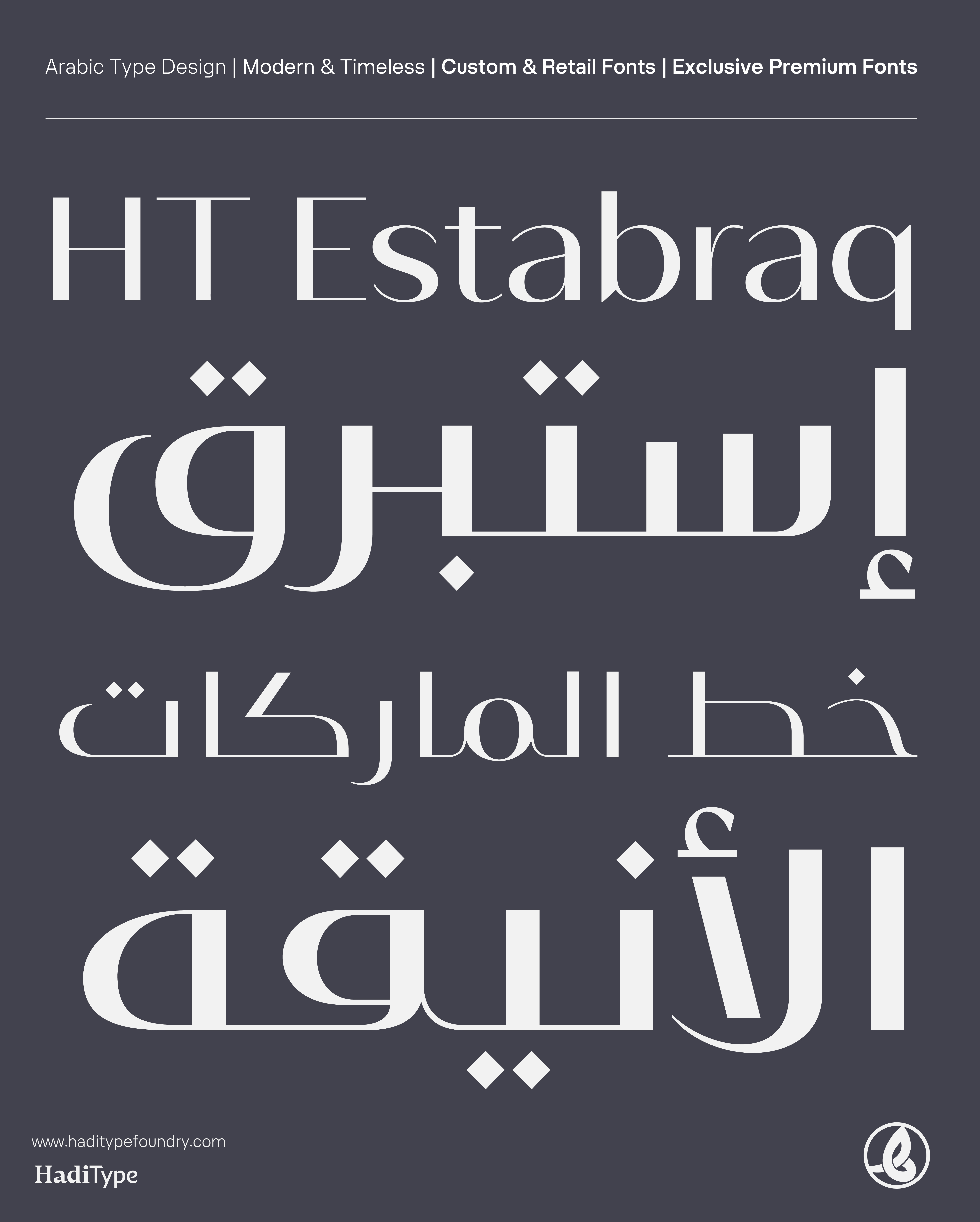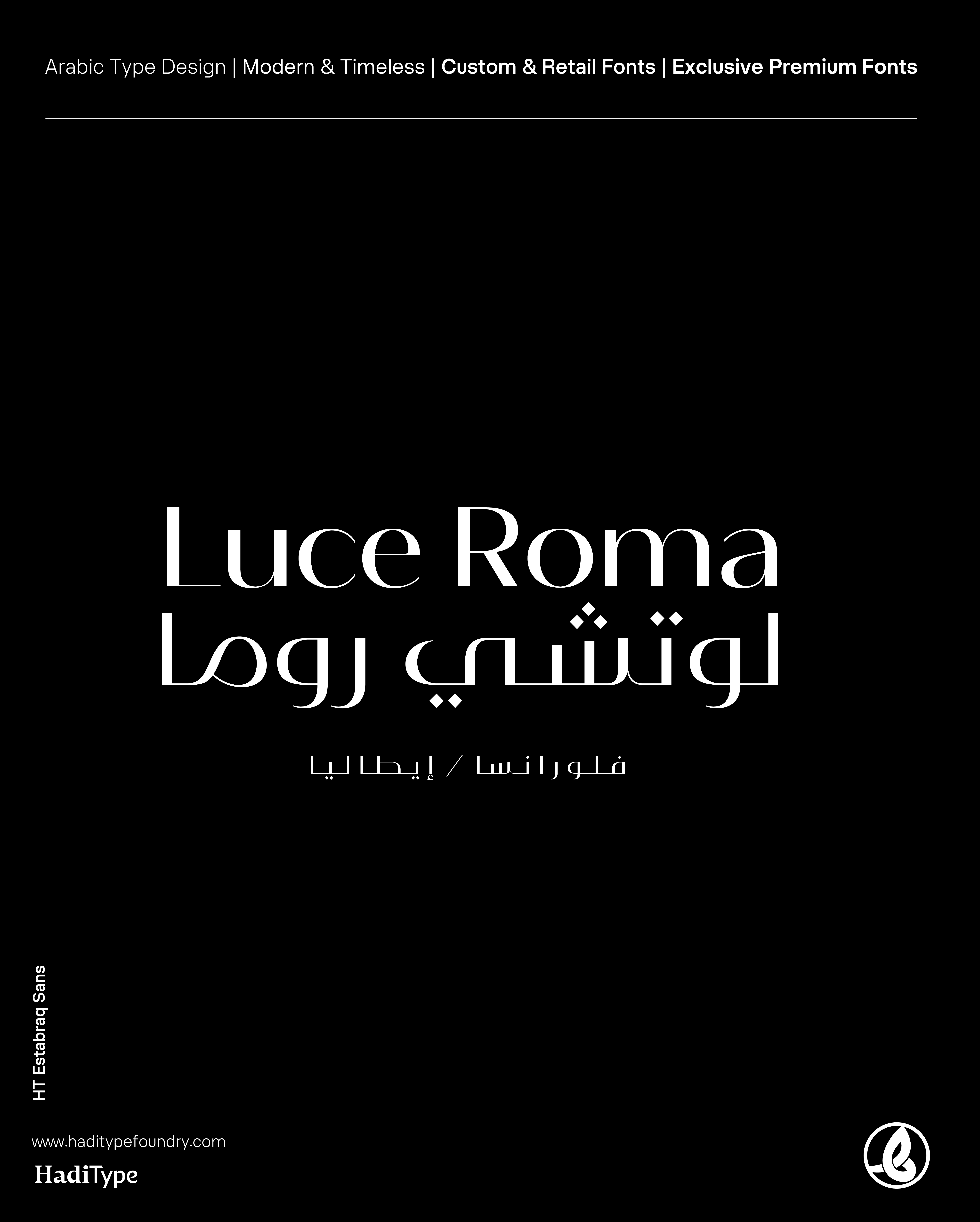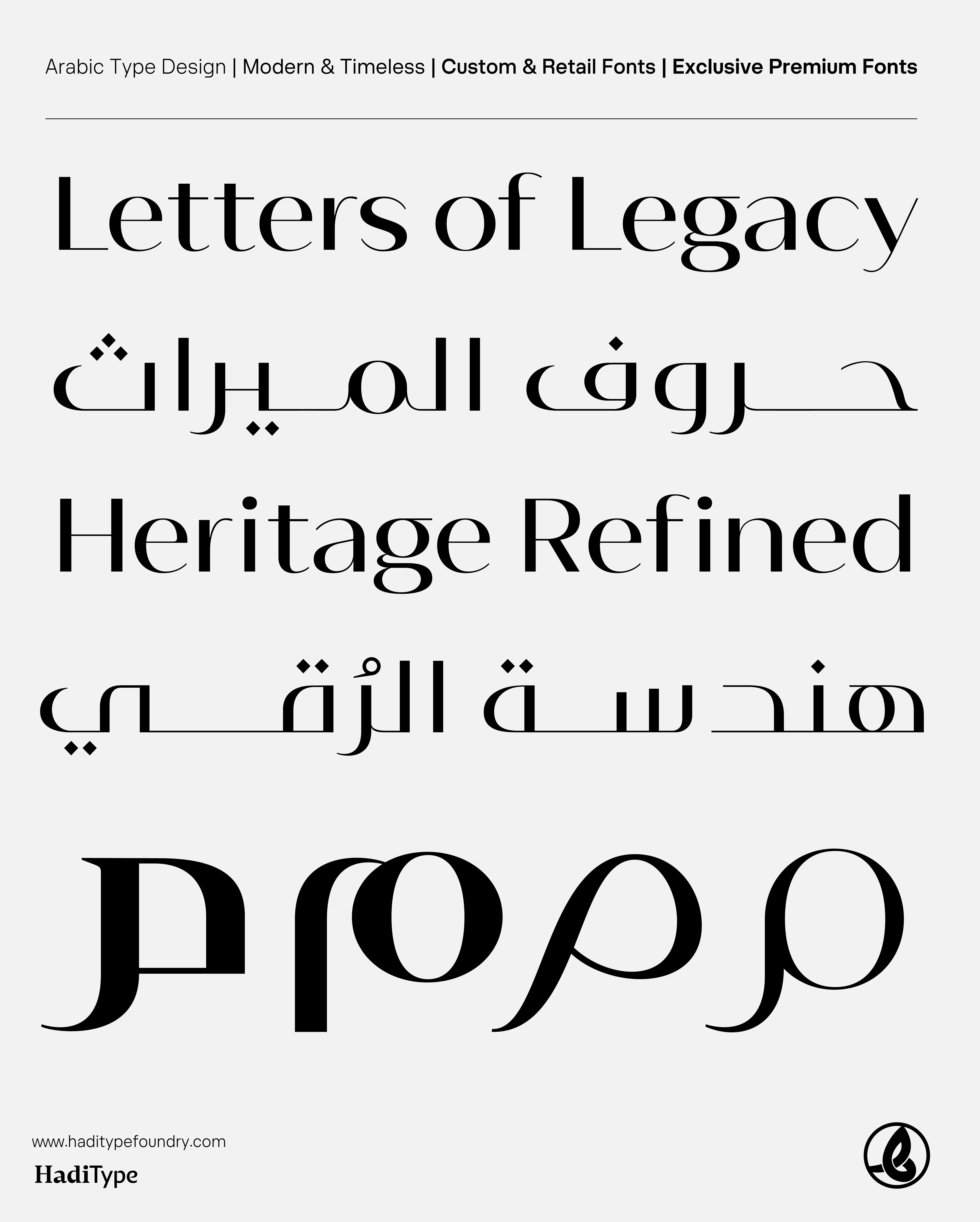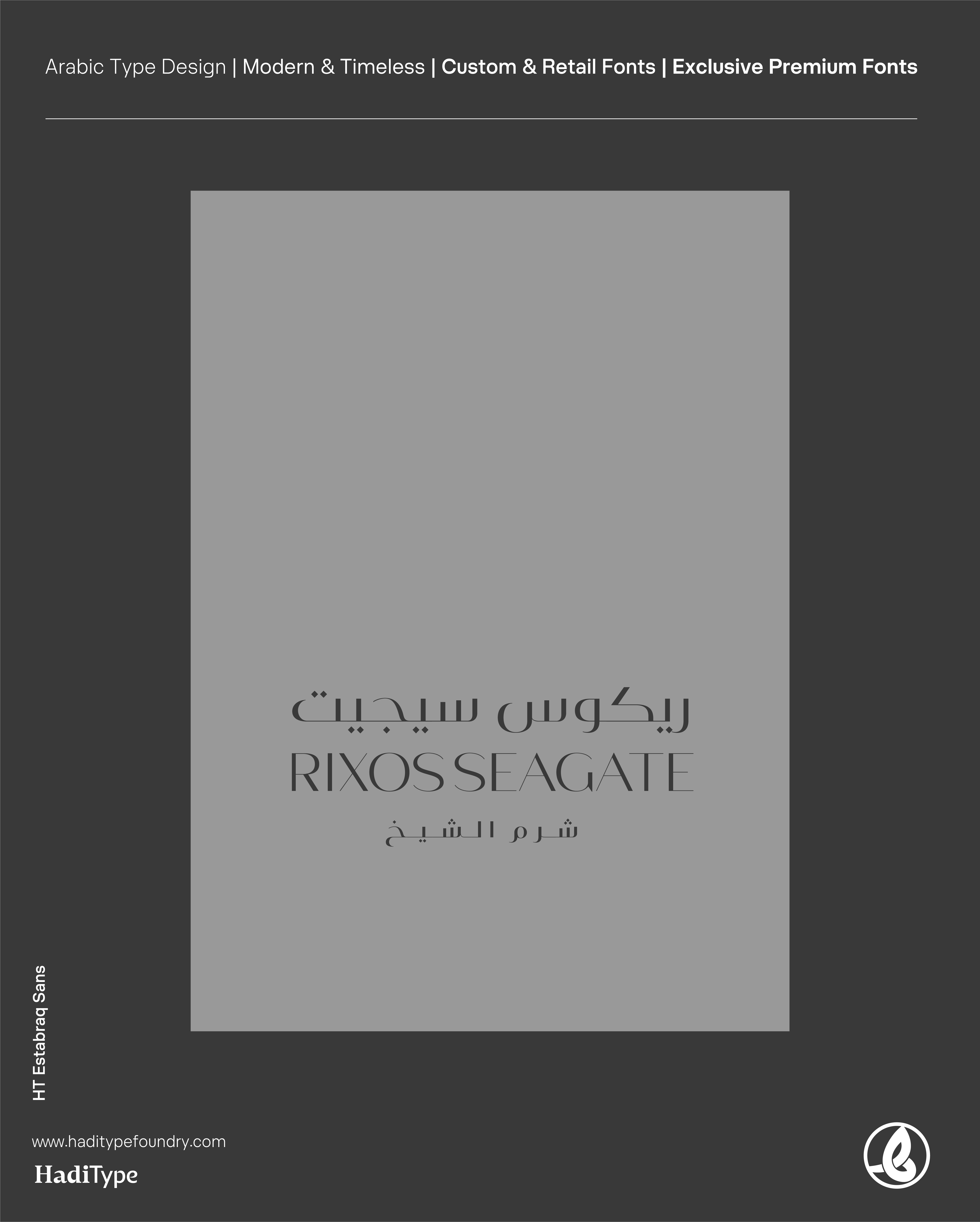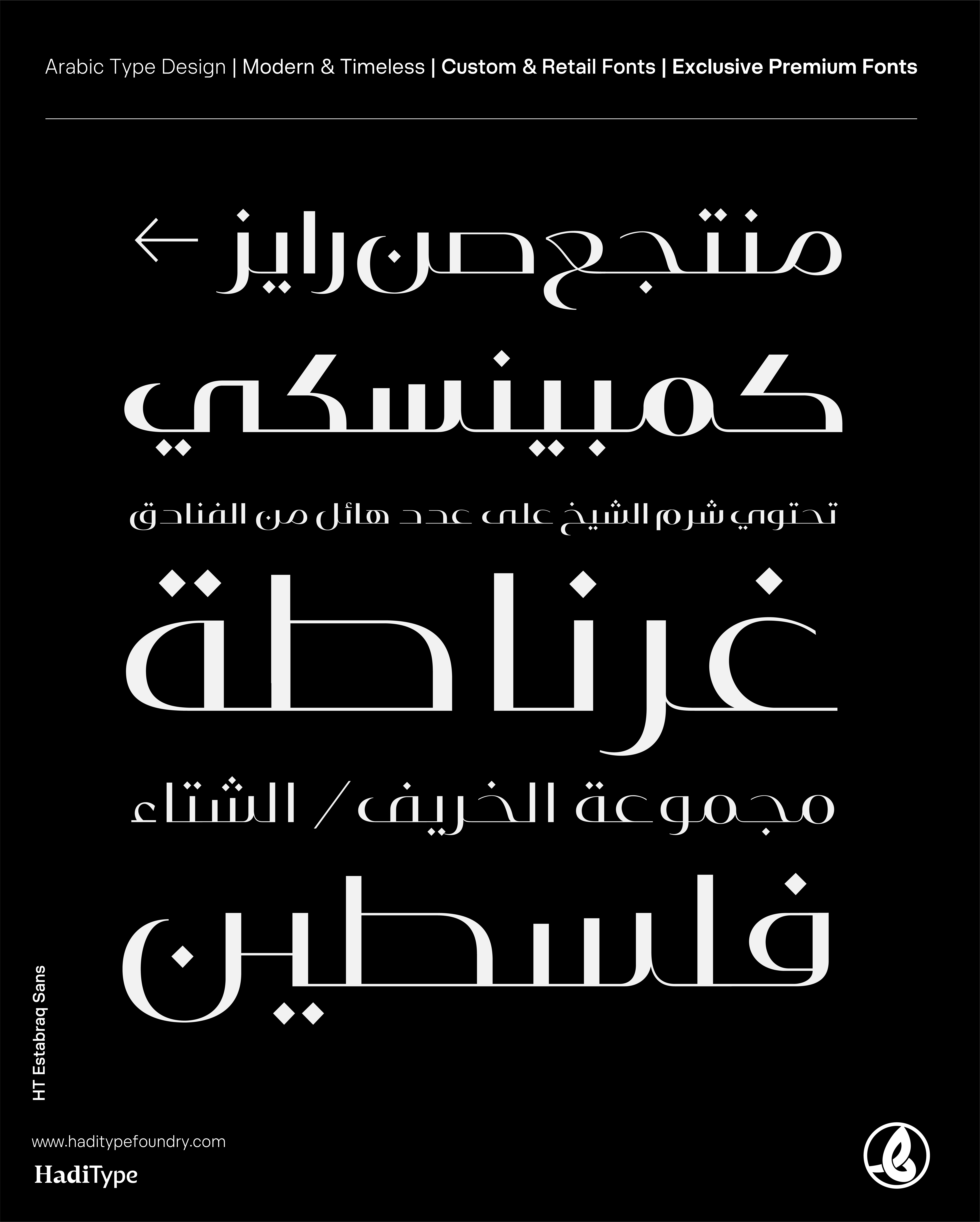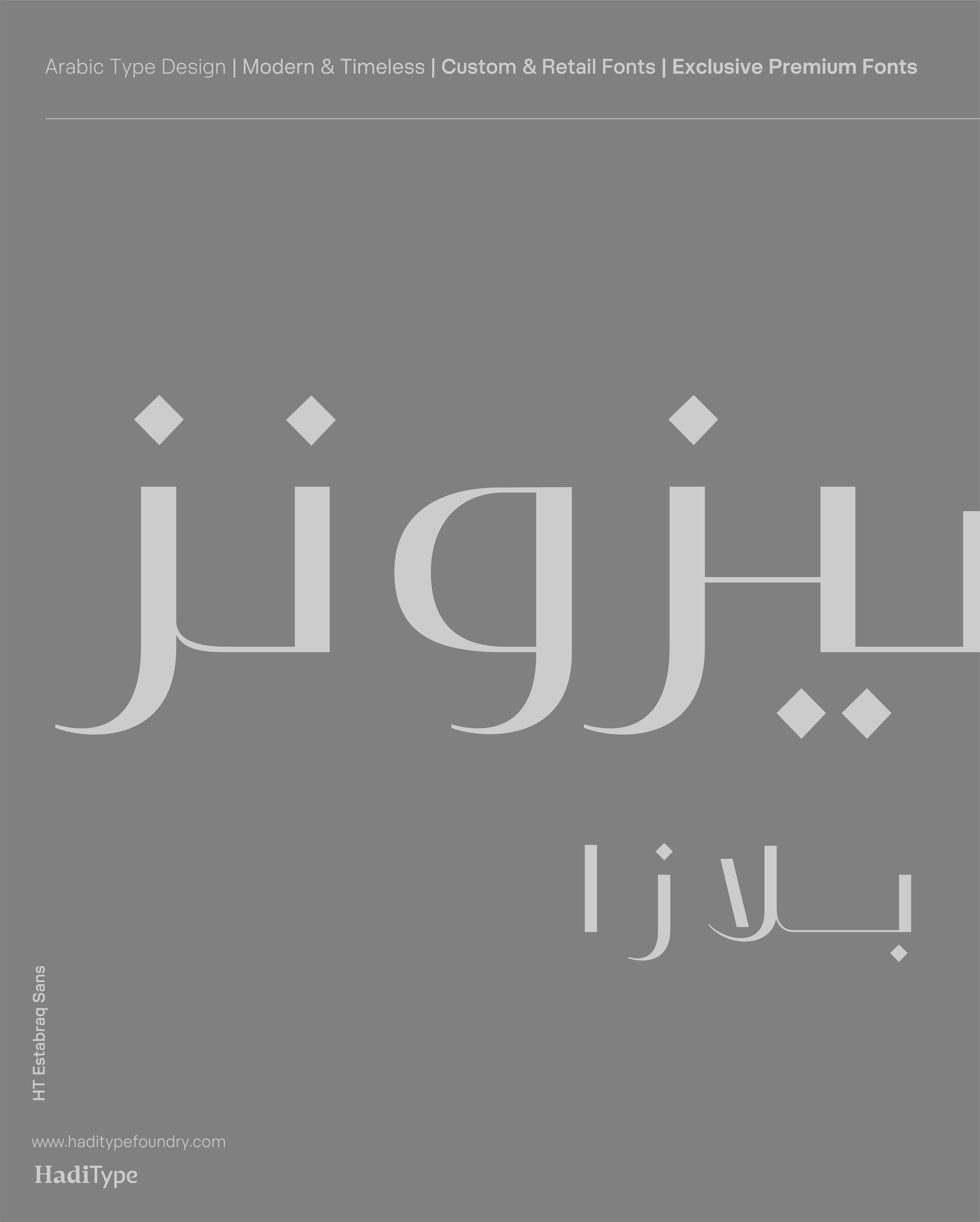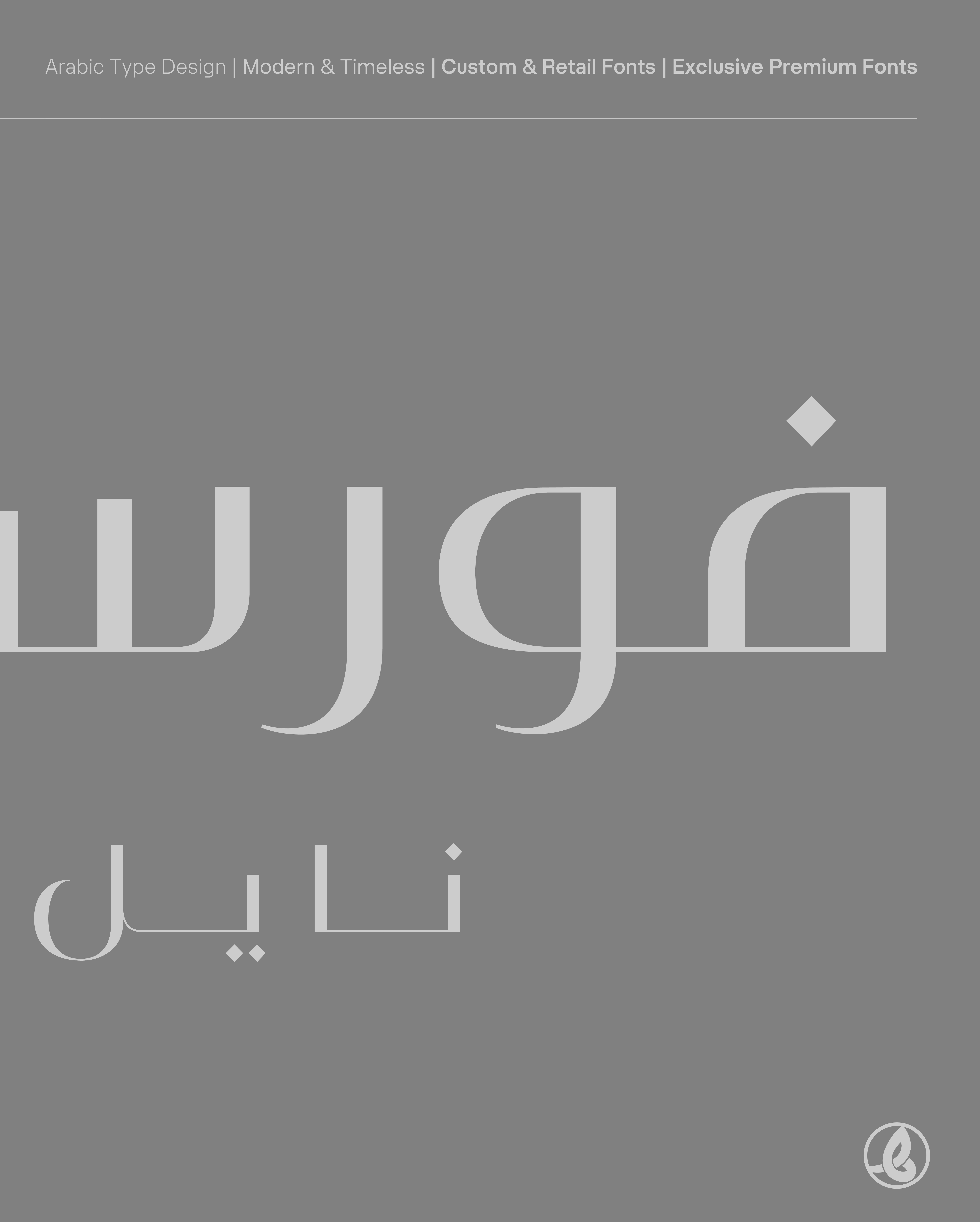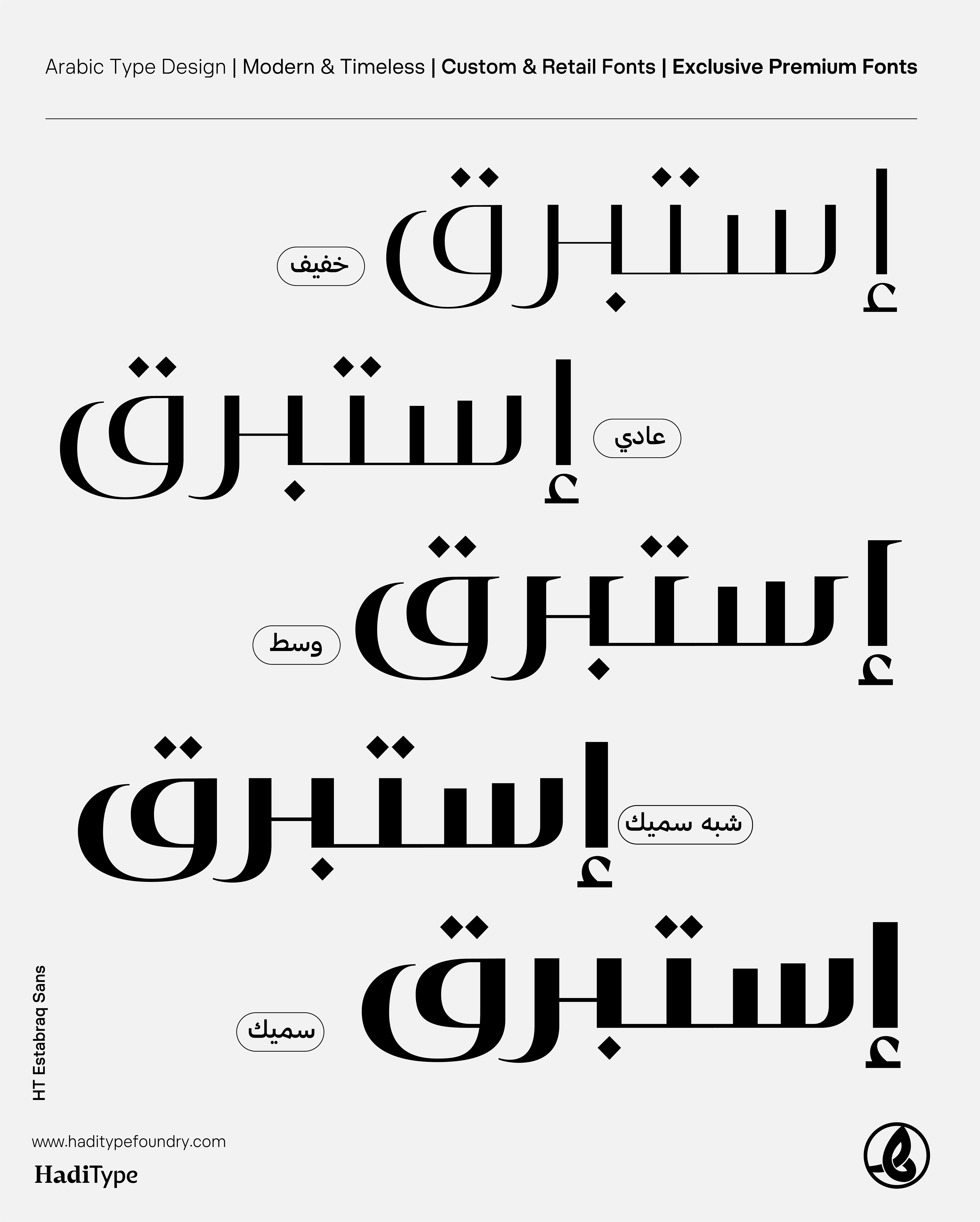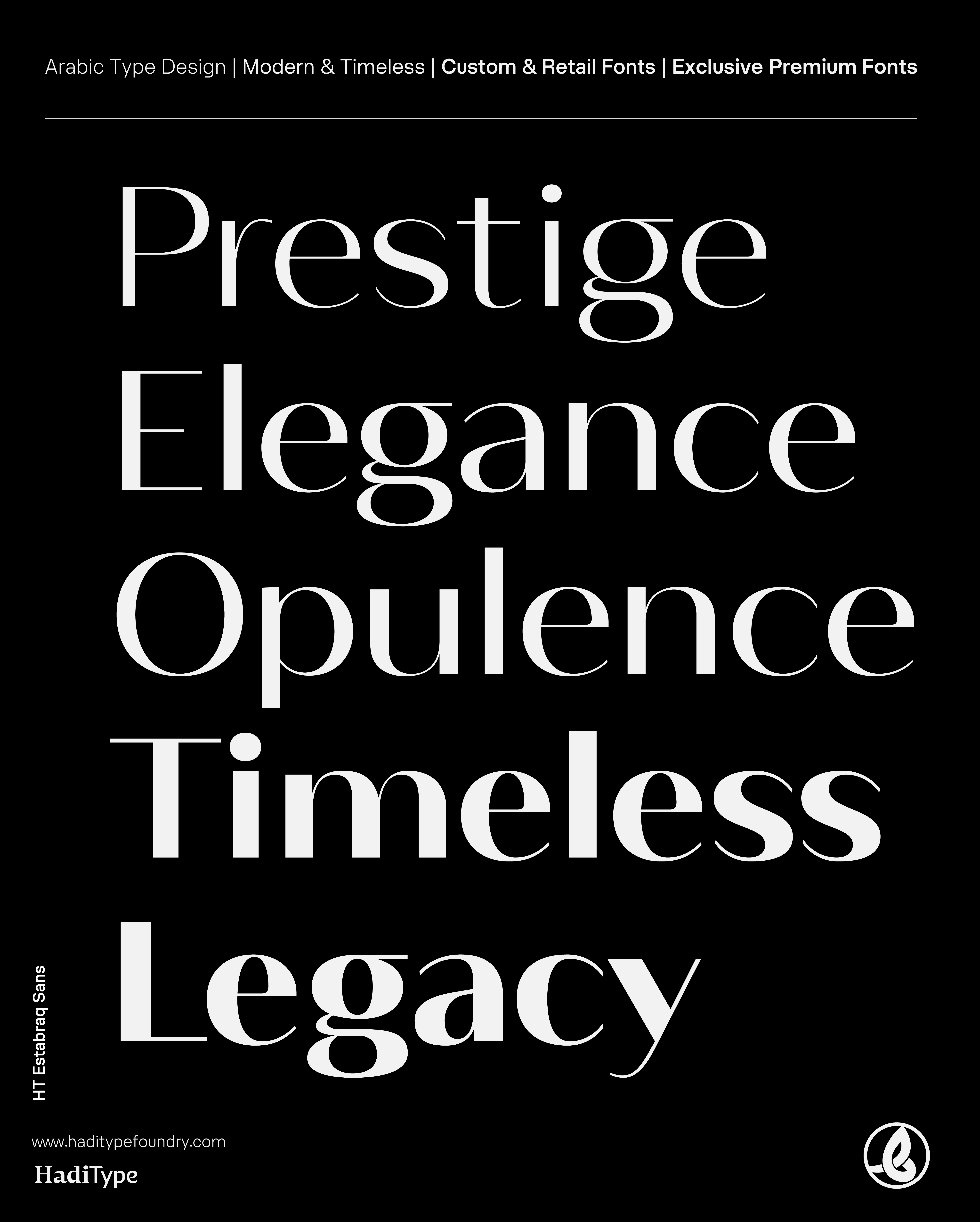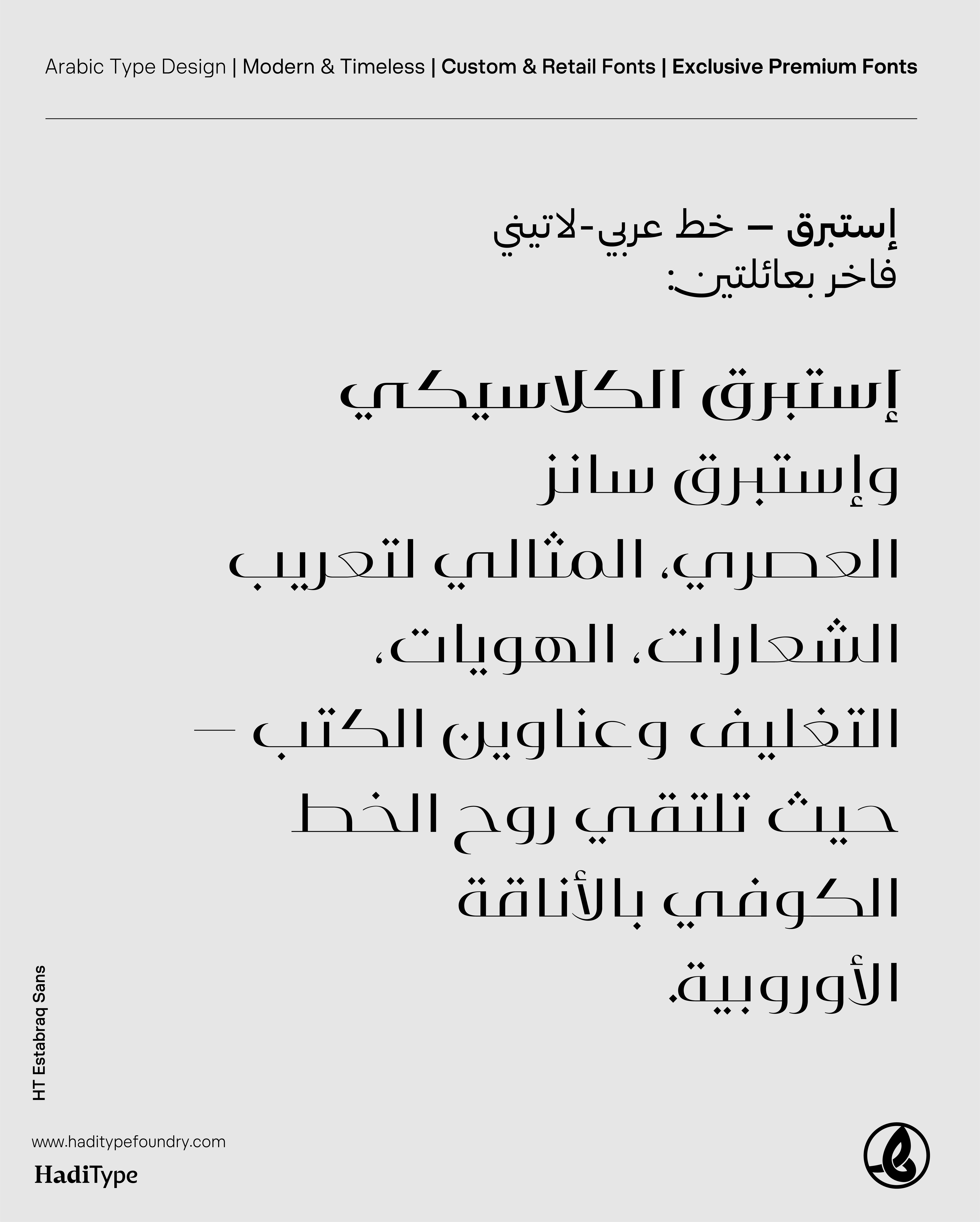
Estabraq Sans
Istabraq is a luxury Arabic–Latin typeface family available in two complementary styles: Istabraq — the classic serif-inspired design rooted in Kufic spirit and European luxury aesthetics, and Istabraq Sans — a contemporary, streamlined counterpart tailored for modern branding, packaging, and editorial titles.
Together, these two families offer designers the flexibility to navigate between timeless elegance and modern simplicity, making Istabraq the ideal choice for logo Arabicization, premium branding, packaging, and cultural publications.